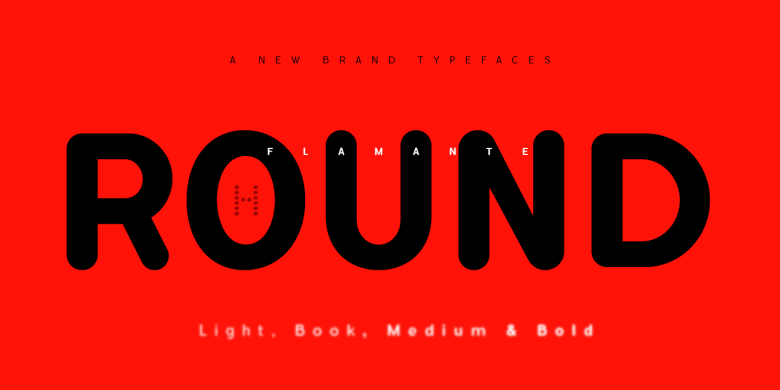
Flamante Round Font
Flamante Round is a group of eight corporate typographies of geometric construction, rounded and neo-grotesque style, are fonts with an excellent readability for titles, short texts or for use in signage. The group of fonts is made up of 4 weights: Light, Book, Medium & Bold plus their respective italics.
This initial development of Flamante Sans typography has been the basis for the drawing of the “Flamante family” fonts composed of 5 styles (Sans, Serif, SemiSlab, Round & Stencil) making a total of 40 fonts that are perfect corporate use, advertising or editorial titles or signage of public spaces for example. They include the Bitcoin symbol.